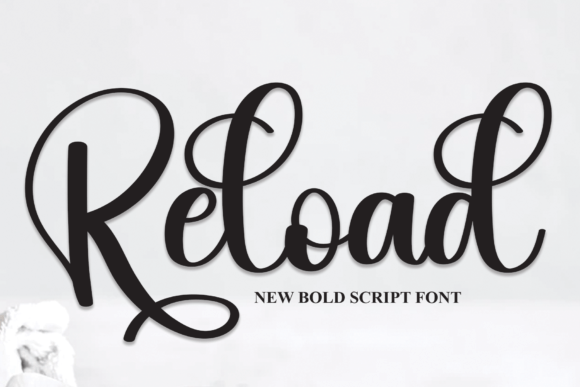
Adorn your designs with the captivating allure of Reload Font, an enchanting script font that exudes elegance and sophistication. Its delicate strokes, reminiscent of a skilled calligrapher's hand, infuse your creations with a touch of timeless charm, while its contemporary flair keeps your designs firmly rooted in the present. Let Reload Font be your muse, guiding you towards design masterpieces that leave an enduring impression.
With Reload Font, the possibilities are boundless. Craft breathtaking wedding invitations that capture the essence of love and commitment, making each couple's special day even more unforgettable. Design enchanting logos that exude a sense of timeless beauty, leaving a lasting impression on your clients. Create social media graphics that captivate your audience, transforming your online presence into a visual feast. The versatility of Reload Font knows no limits.
Feel the creative energy flow as you explore the myriad applications of Reload Font. Its graceful curves and elegant lines lend themselves perfectly to branding projects, adding a touch of refinement to your company's visual identity. Elevate your marketing materials with captivating headlines and eye-catching slogans that demand attention. Let Reload Font be your secret weapon in creating designs that resonate with your target audience, leaving them spellbound by your creativity.
Indulge in the beauty of Reload Font and embark on a creative journey that knows no bounds. Its enchanting charm will elevate your designs to new heights, transforming them into masterpieces that captivate and inspire. Let Reload Font be your creative companion, leading you to design triumphs that leave a lasting legacy.